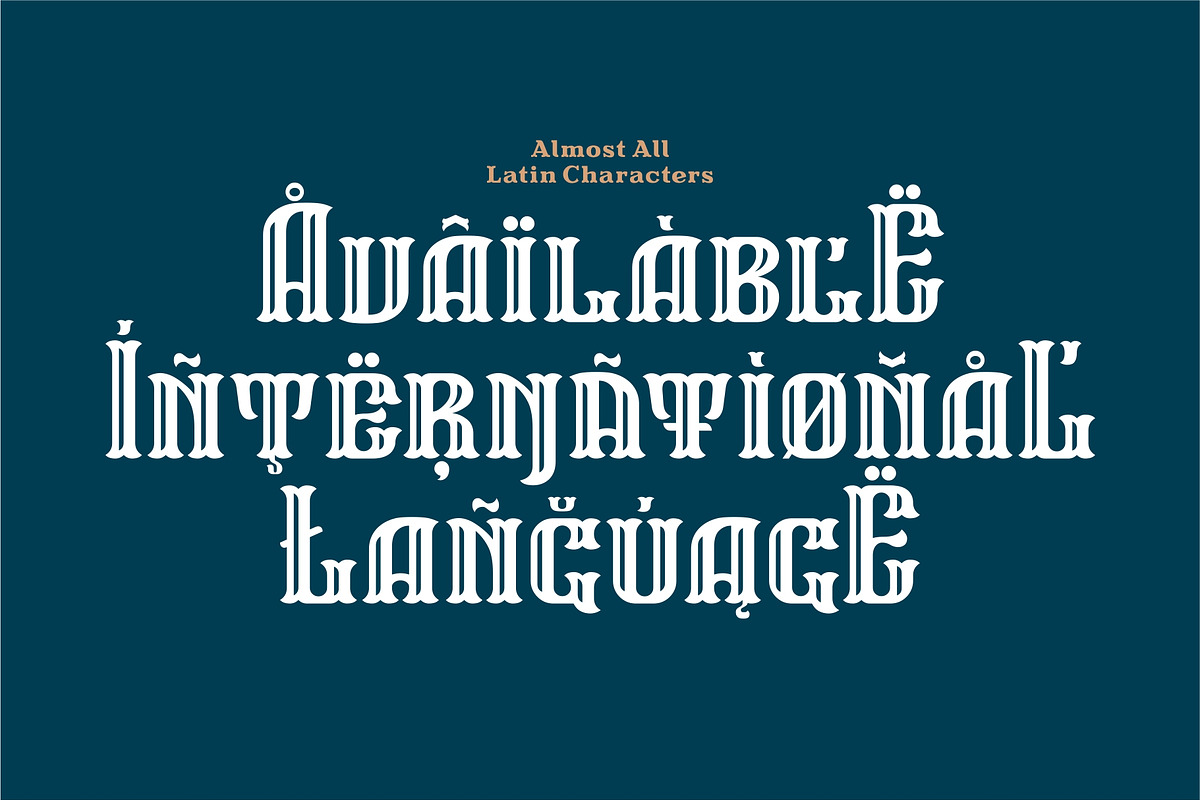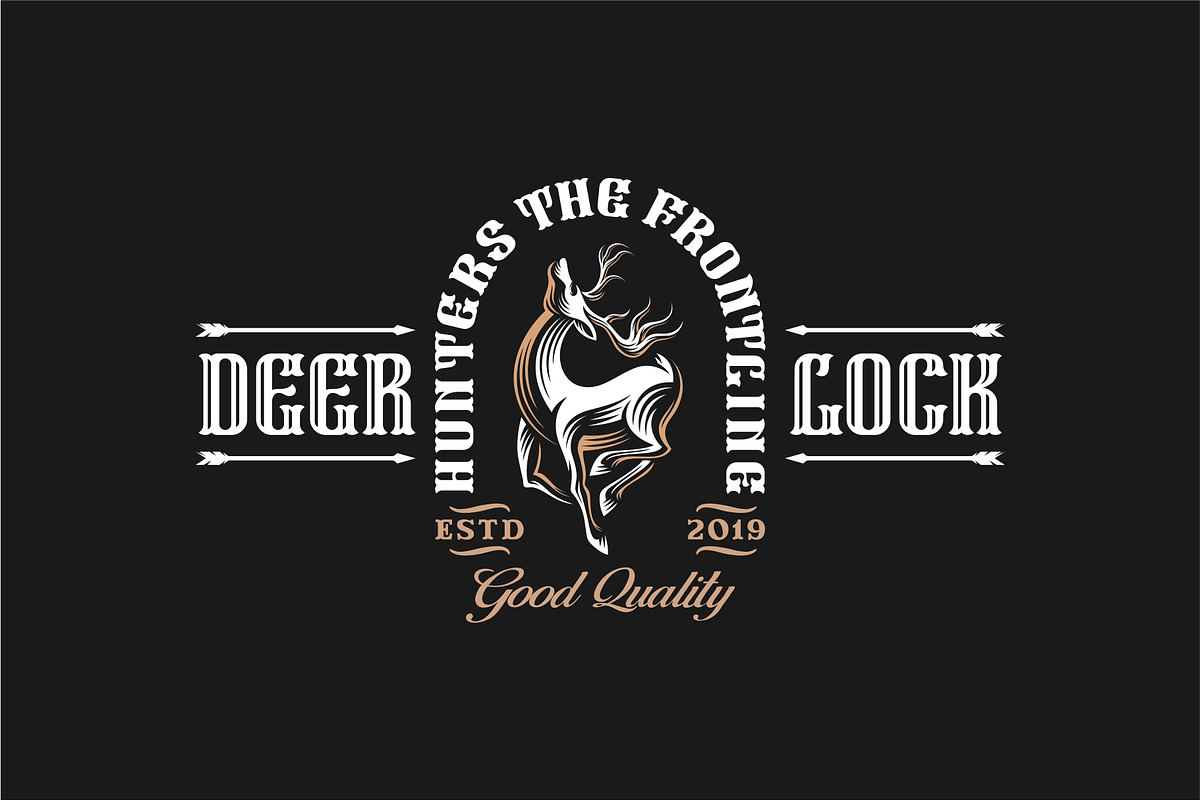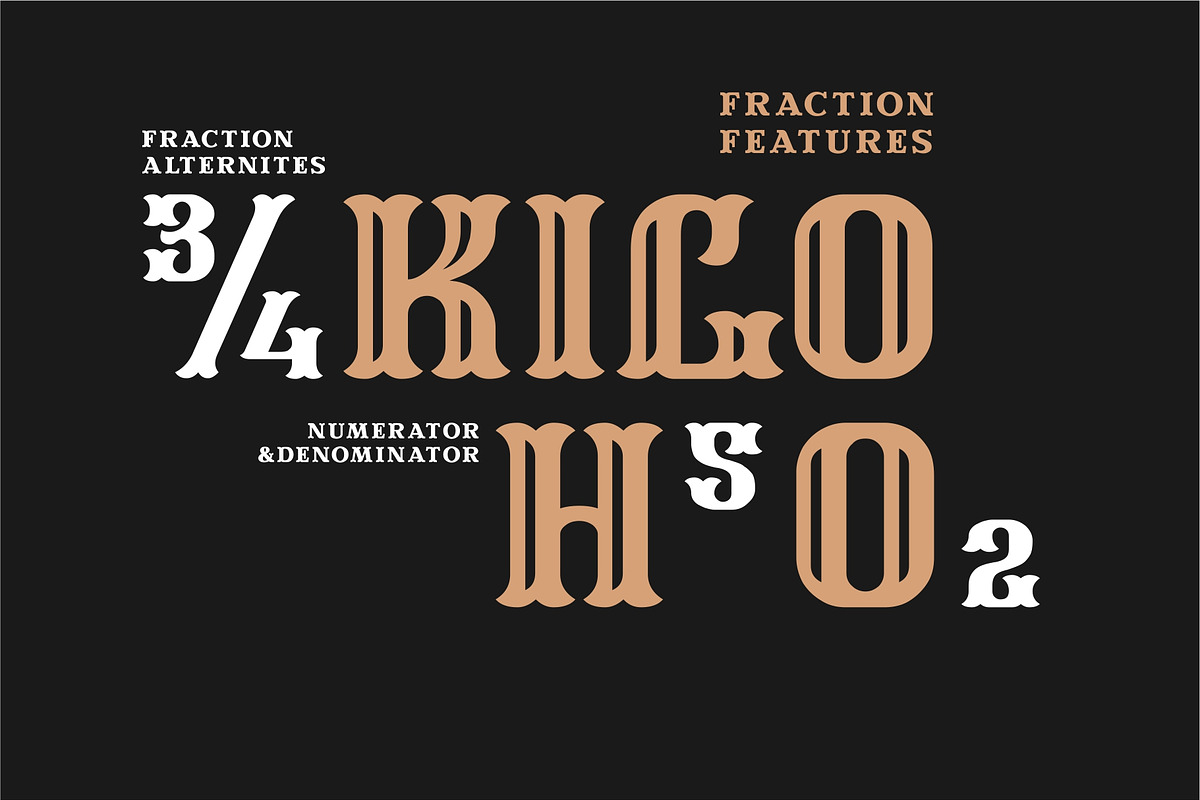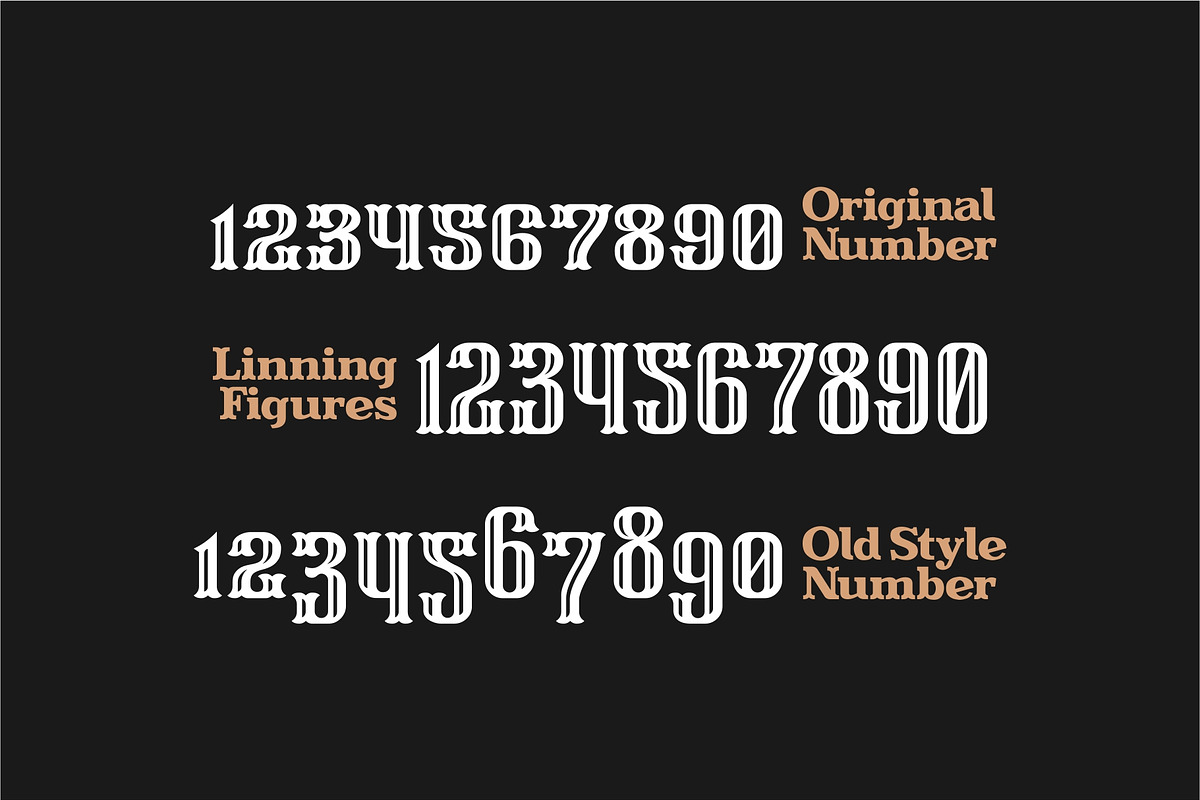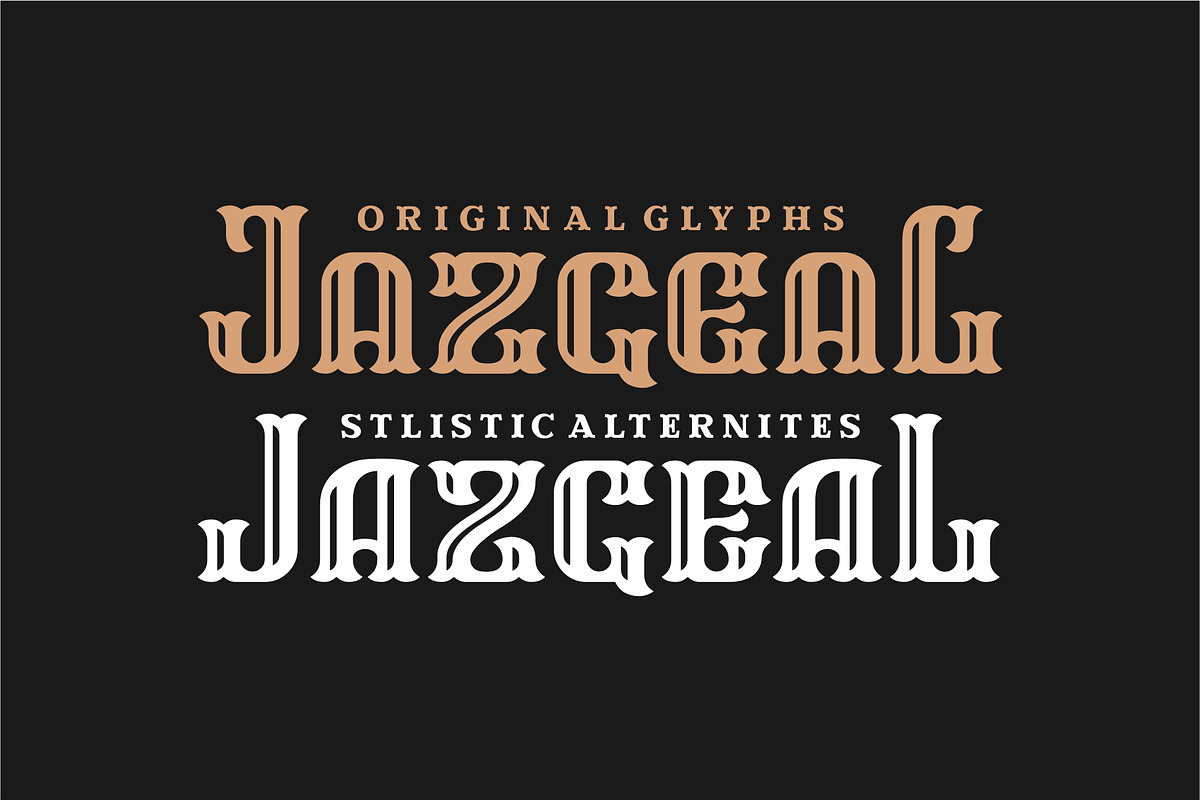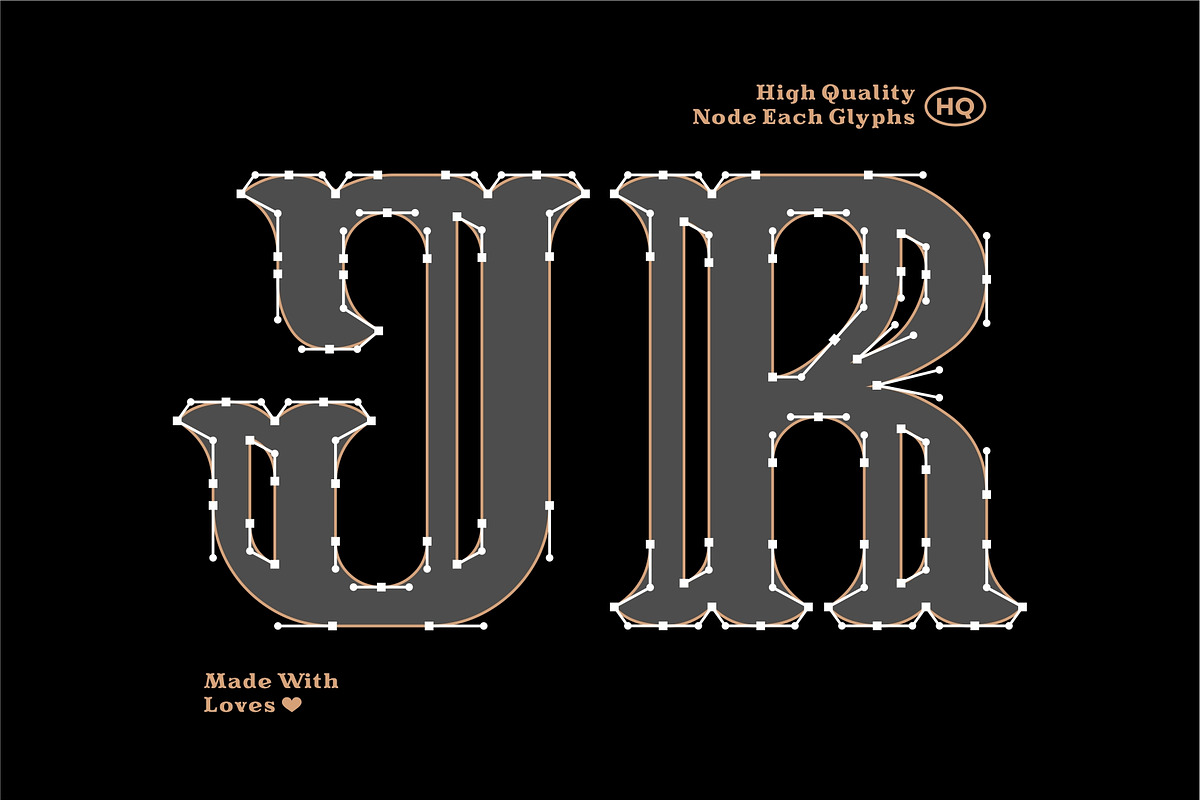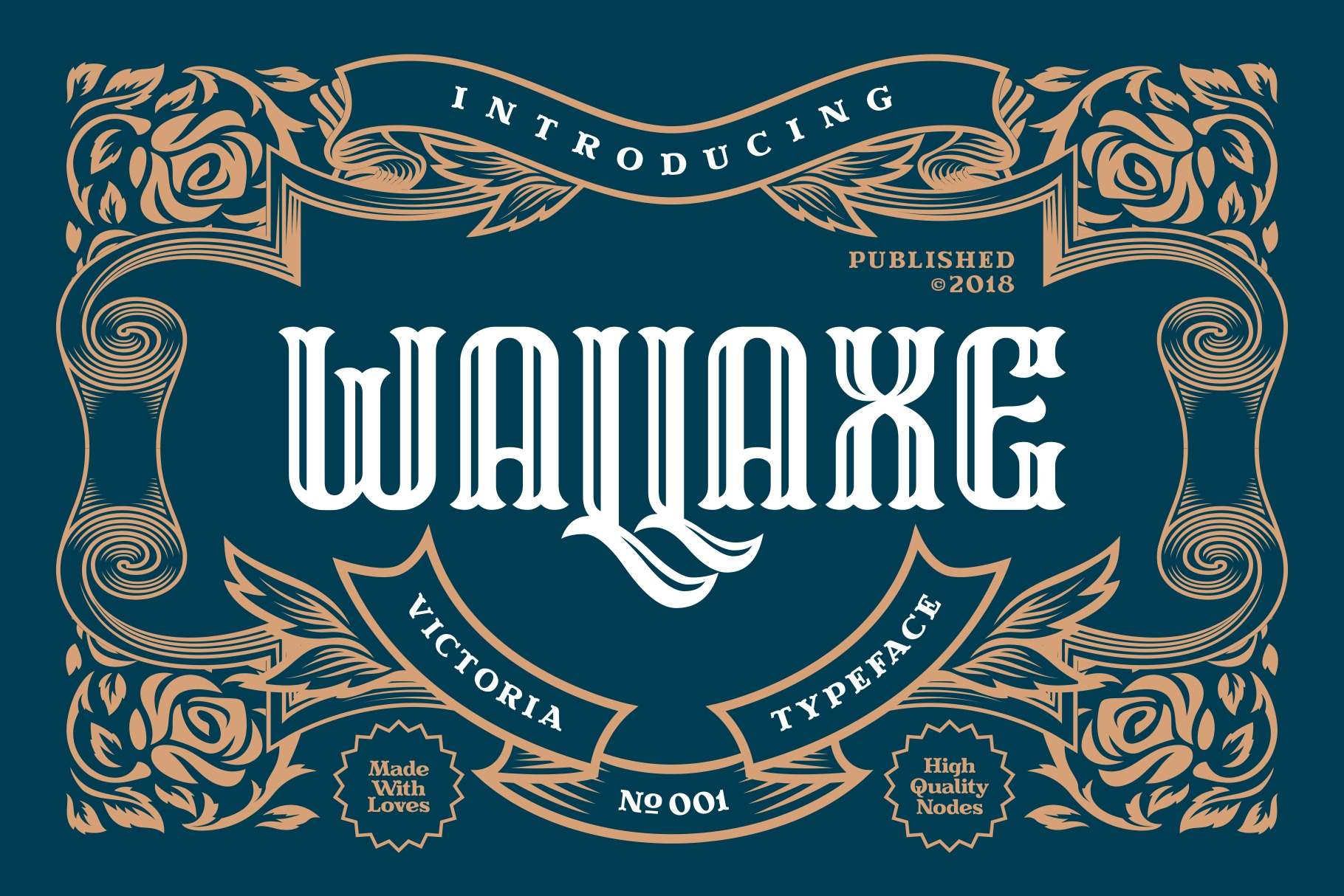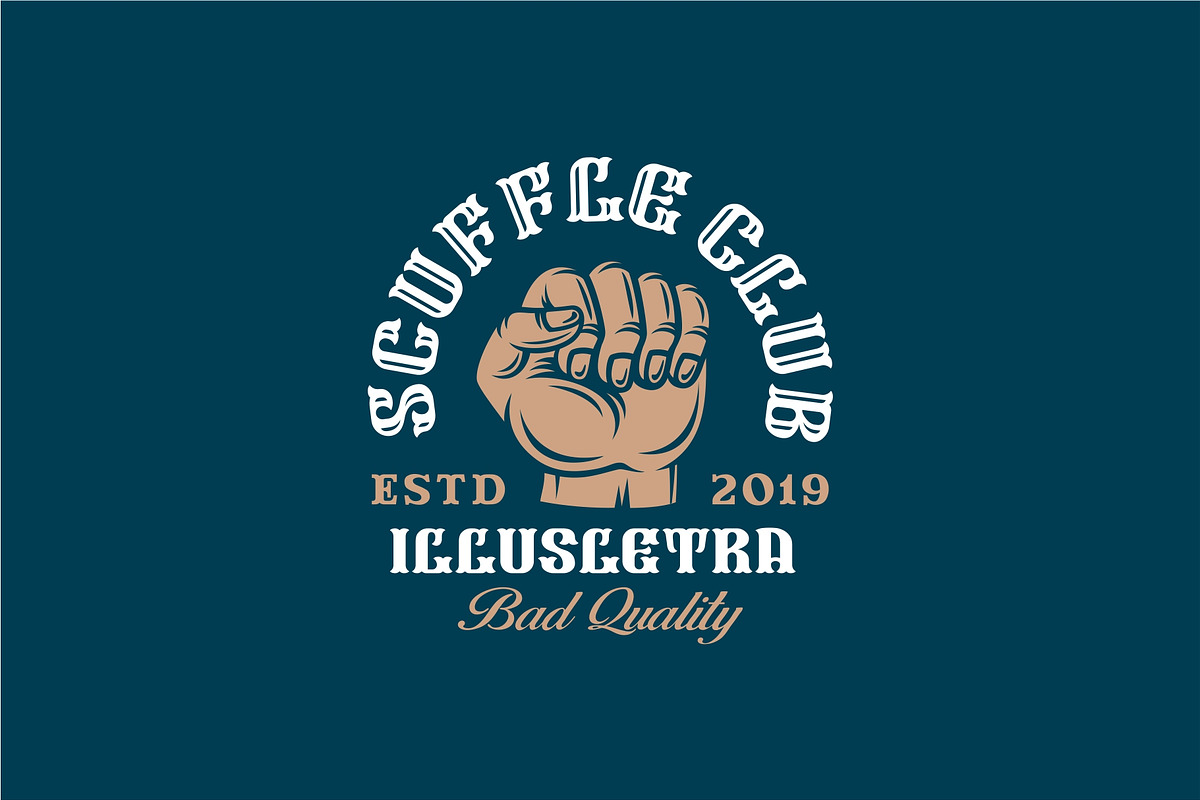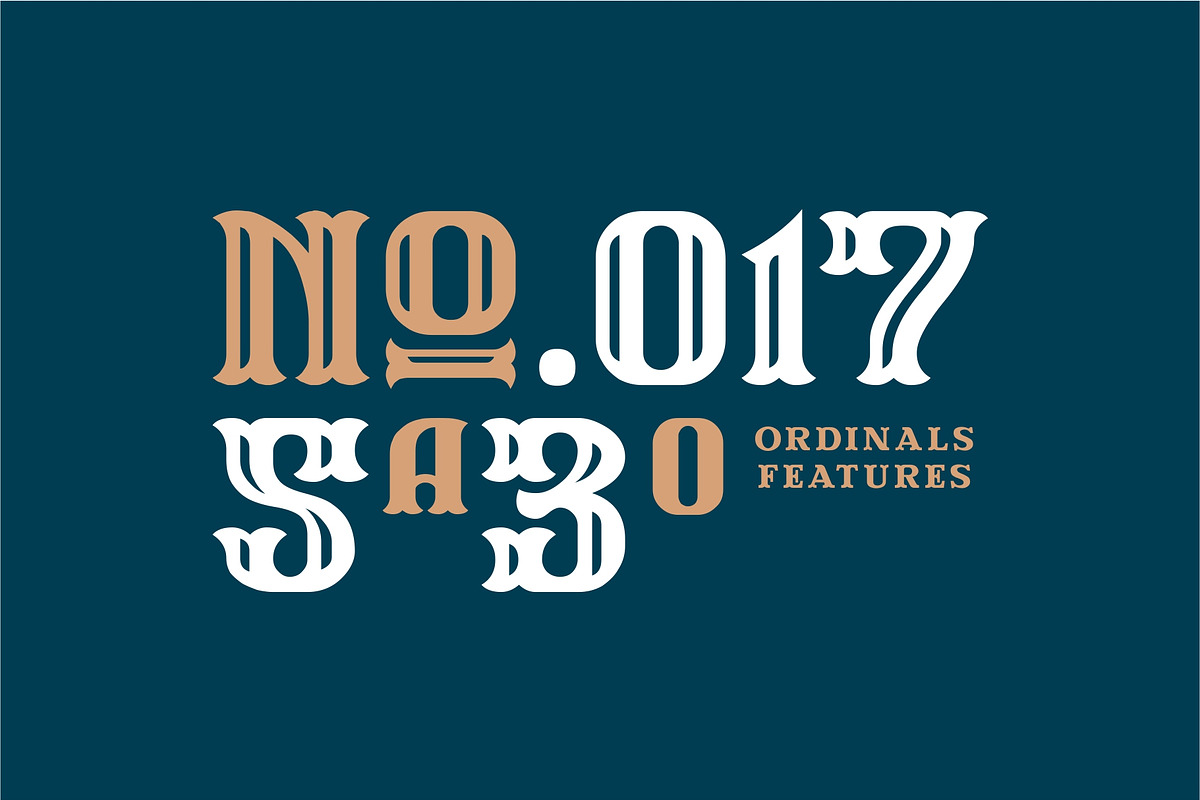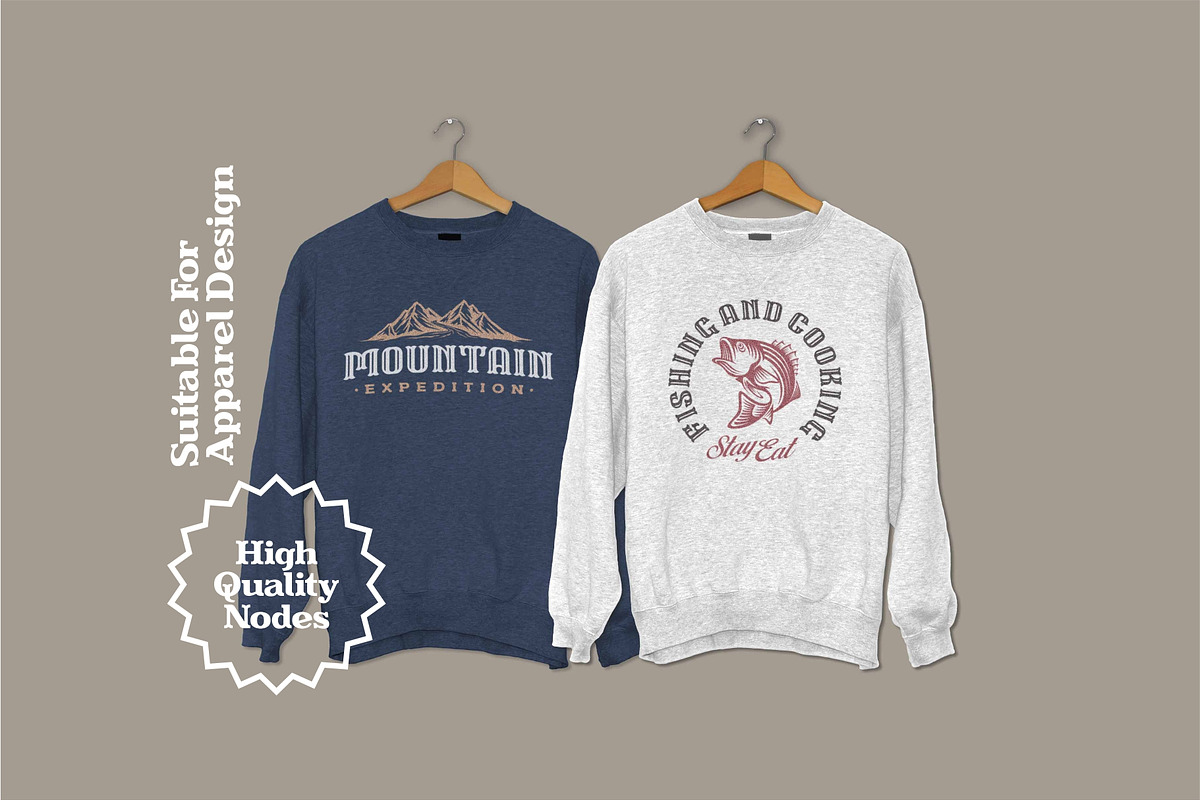
WallAxe Fonts Condensed
What distinguishes it from its predecessor is that this font has been fixed with bug fixes from previous versions, character development and glyphs, adding contextual ligature, more multilingual characters.. Come with 2 styles regular and inline style. Released since 2018.
- Standard Ligature
- Stylistic Alternate
- Fraction, Numerator, Denominator
- Number Styles, Lining FIgures, Old Style.
- Ordinals
- Includes a range of multilingual characters.
WallAxe Typeface is suitable typeface for various purposes like logotype, signage, label, poster, dropcap, titles, letterhead, book cover and etc.